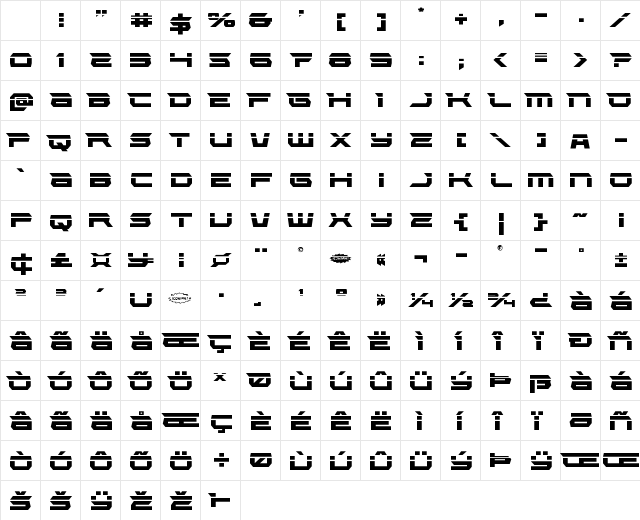
Lethal Force Laser Regular
Designer: Daniel Zadorzny
Design Context for Lethal Force Laser
Lethal Force Laser brings high-energy athletic personality to the page - its confident, muscular forms are built for impact.
Pro Tip: Use Lethal Force Laser in all-caps headlines where its athletic energy can fully express itself. Pair with a solid, simple sans for supporting text.